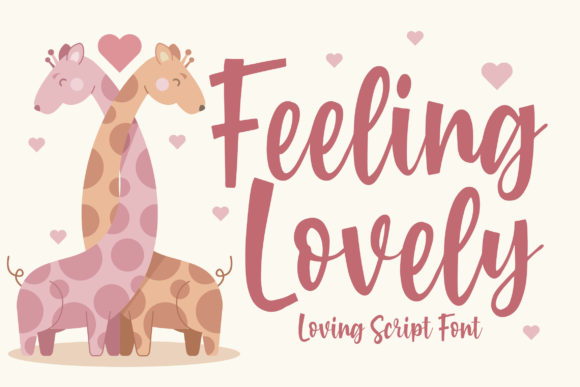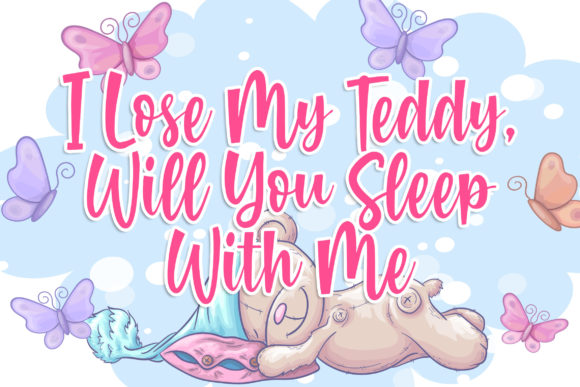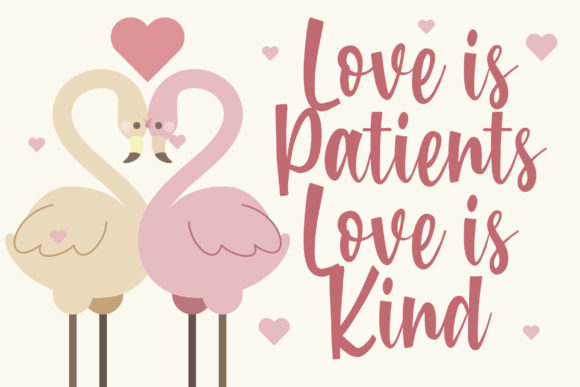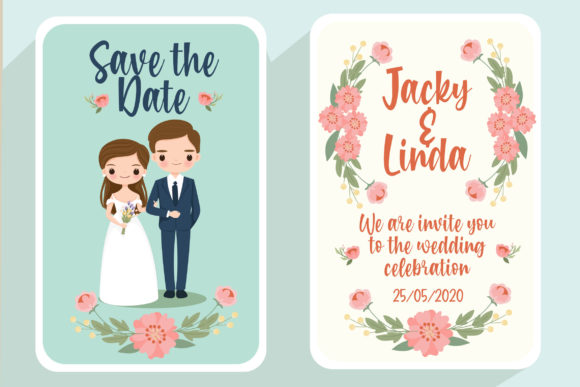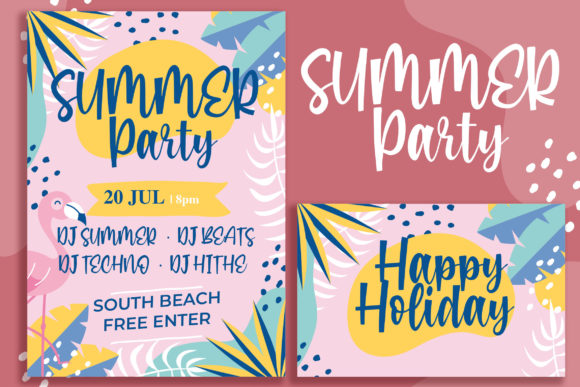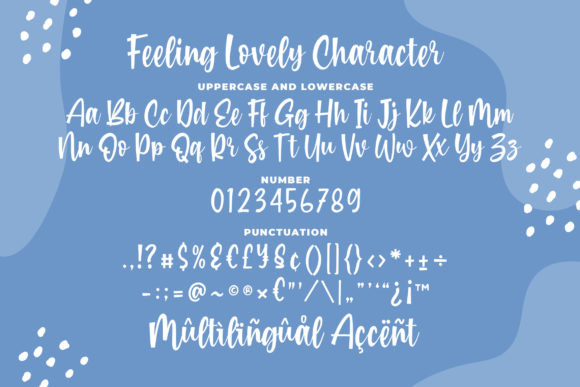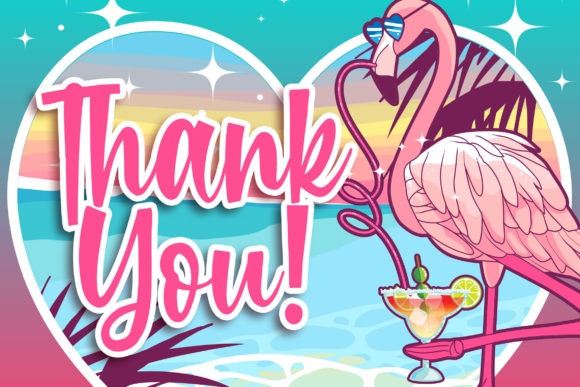
Feeling Lovely Font
About Feeling Lovely Font
Feeling Lovely radiates charm and authenticity. Fall in love with this romantic and fancy script font and ignite your creativity in an instant!